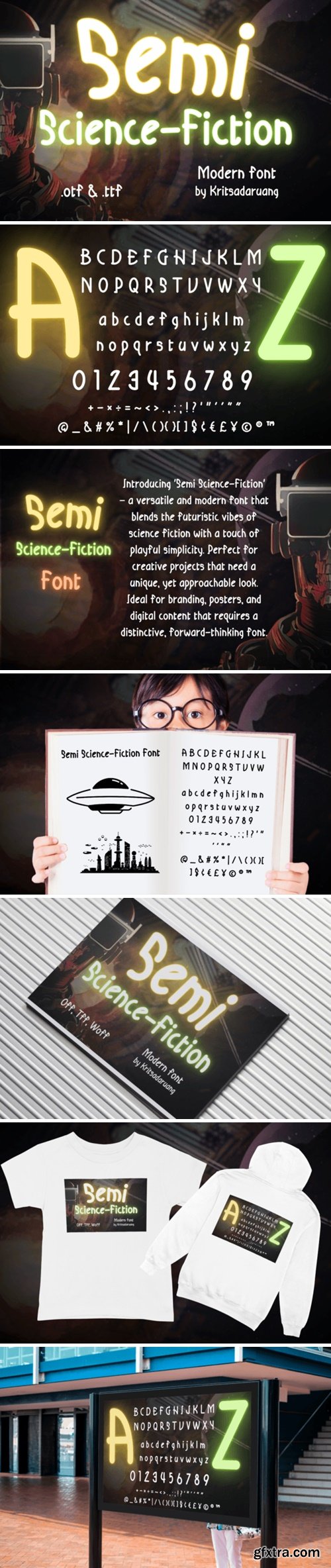
Semi Science-fiction Font
Introducing ‘Semi Science-Fiction’ – a versatile and modern font that blends the futuristic vibes of science fiction with a touch of playful simplicity. Perfect for creative projects that need a unique, yet approachable look. Ideal for branding, posters, and digital content that requires a distinctive, forward-thinking font.